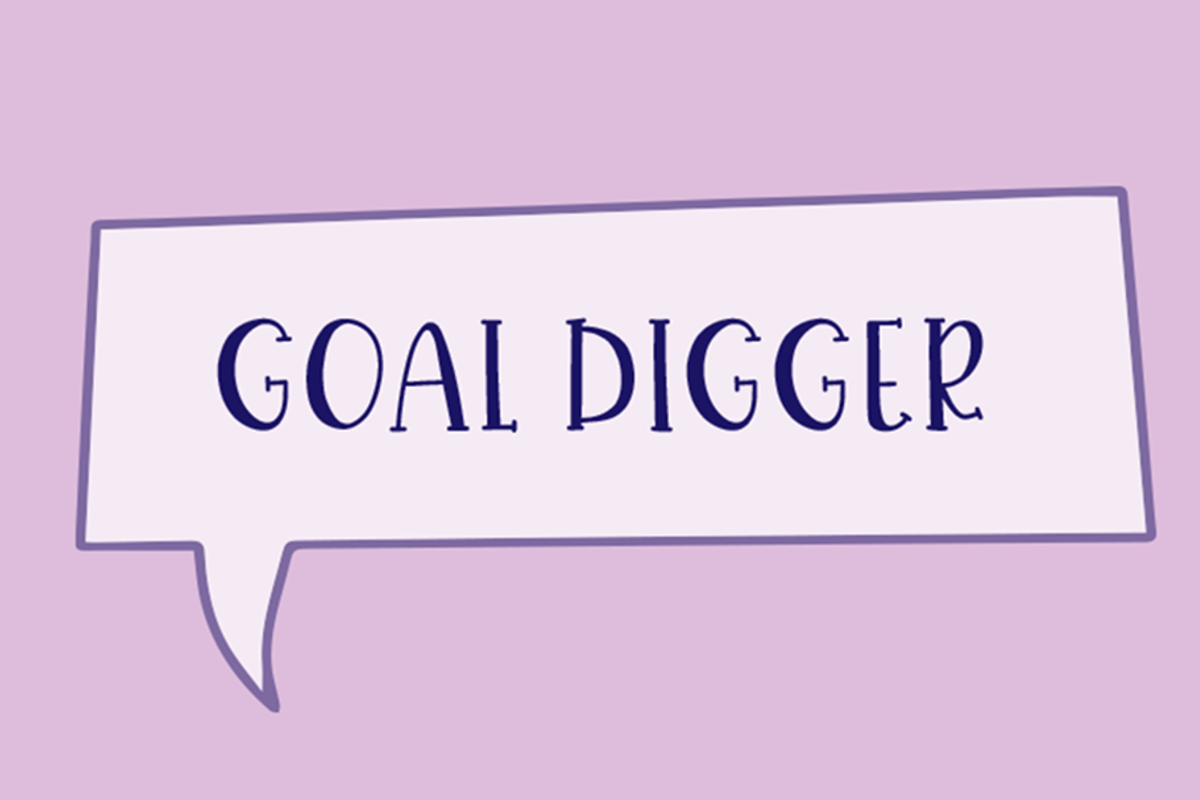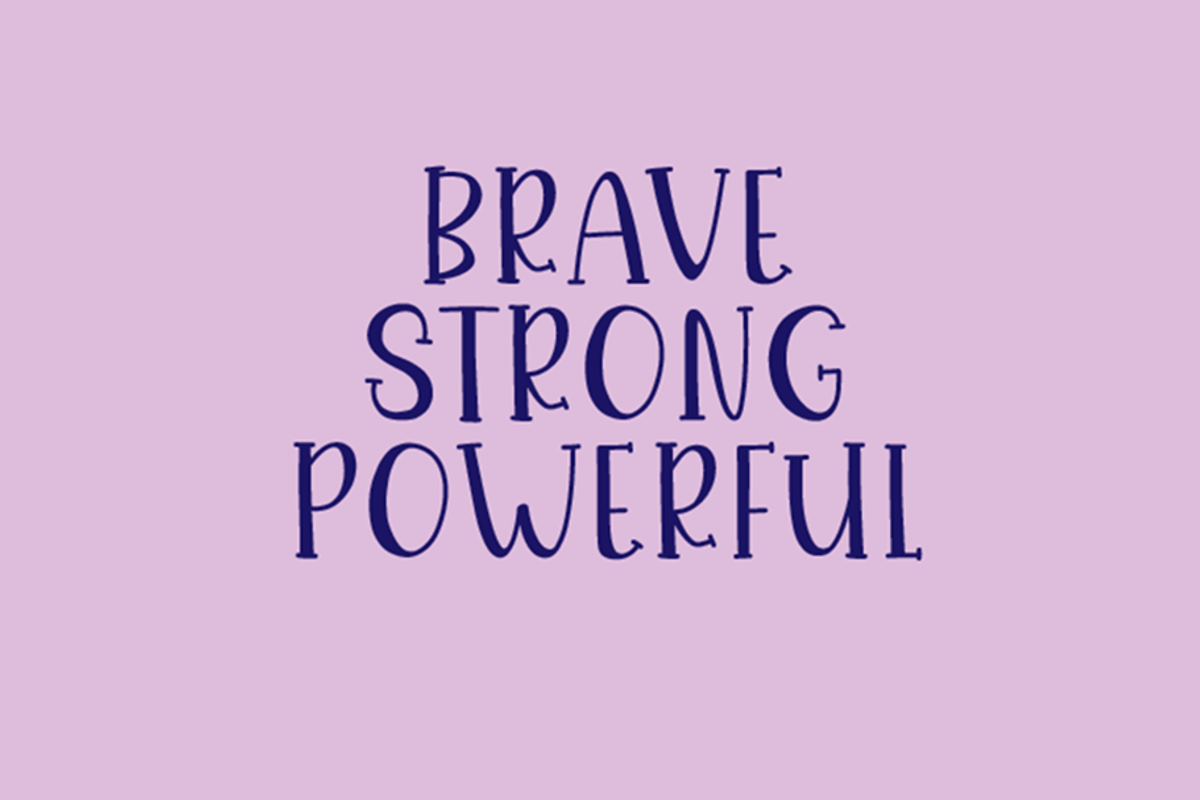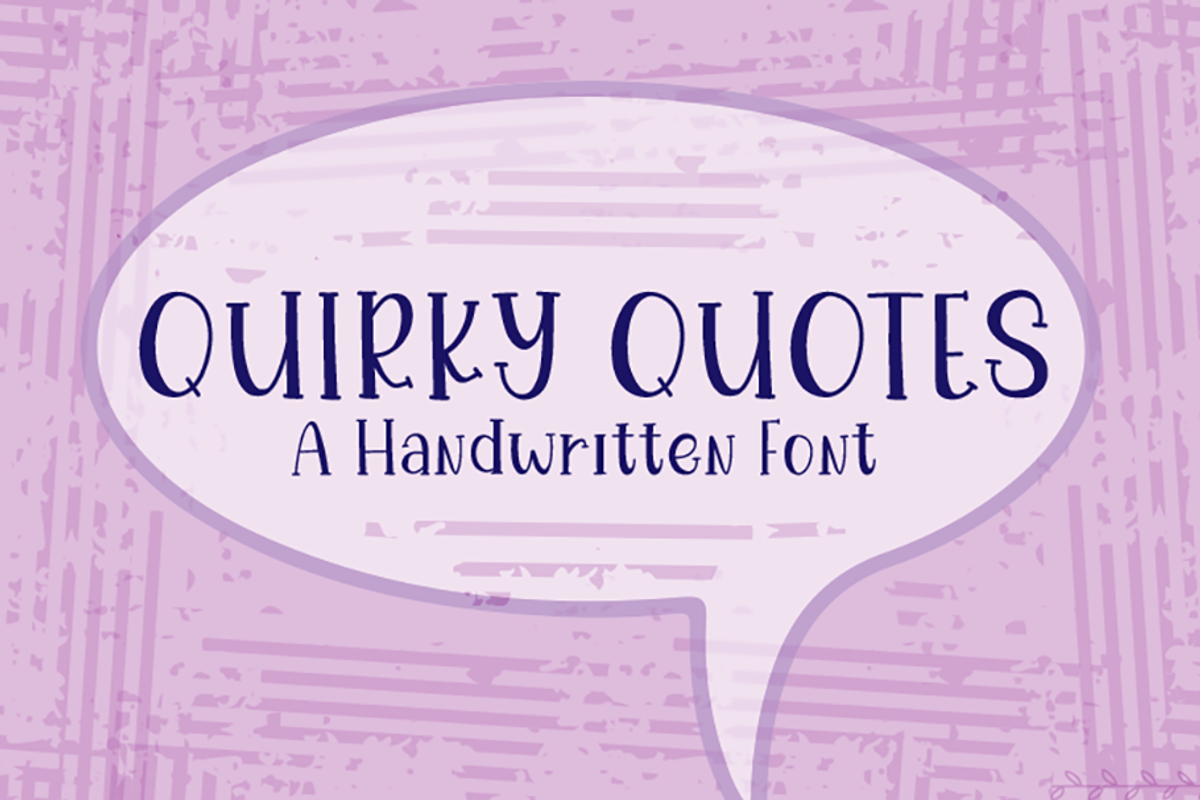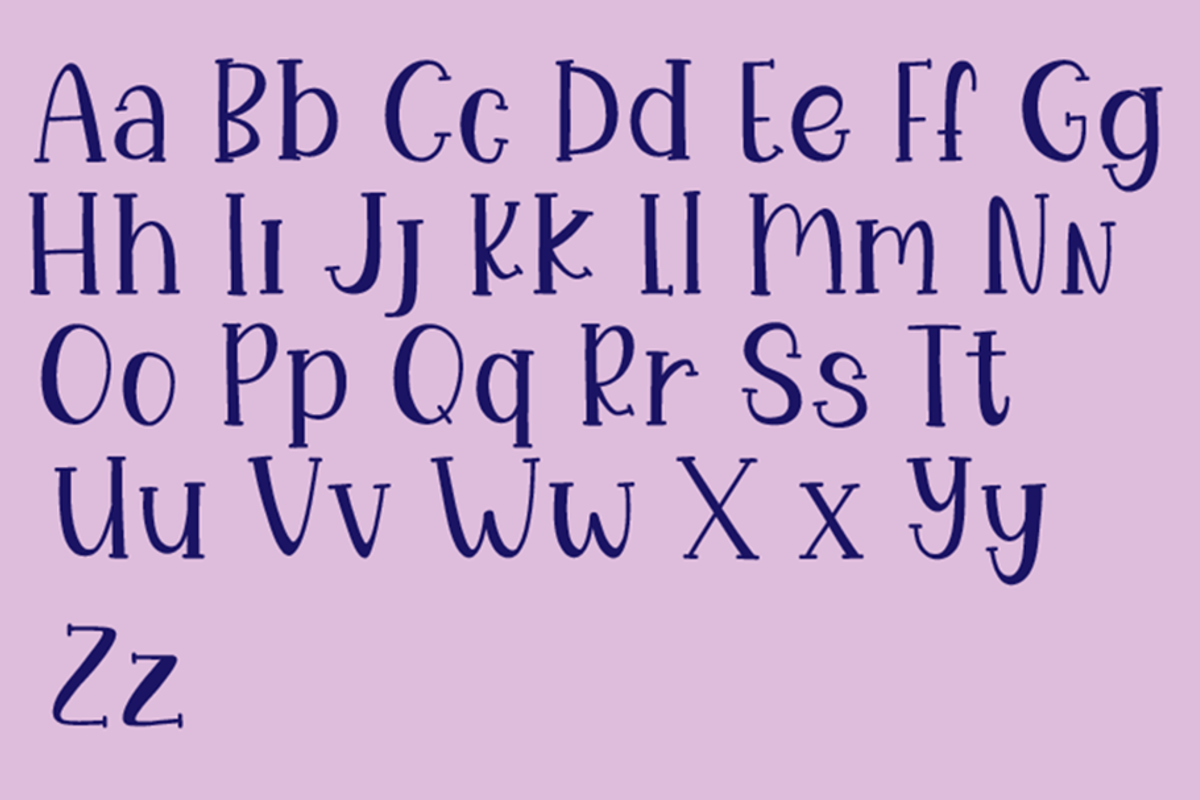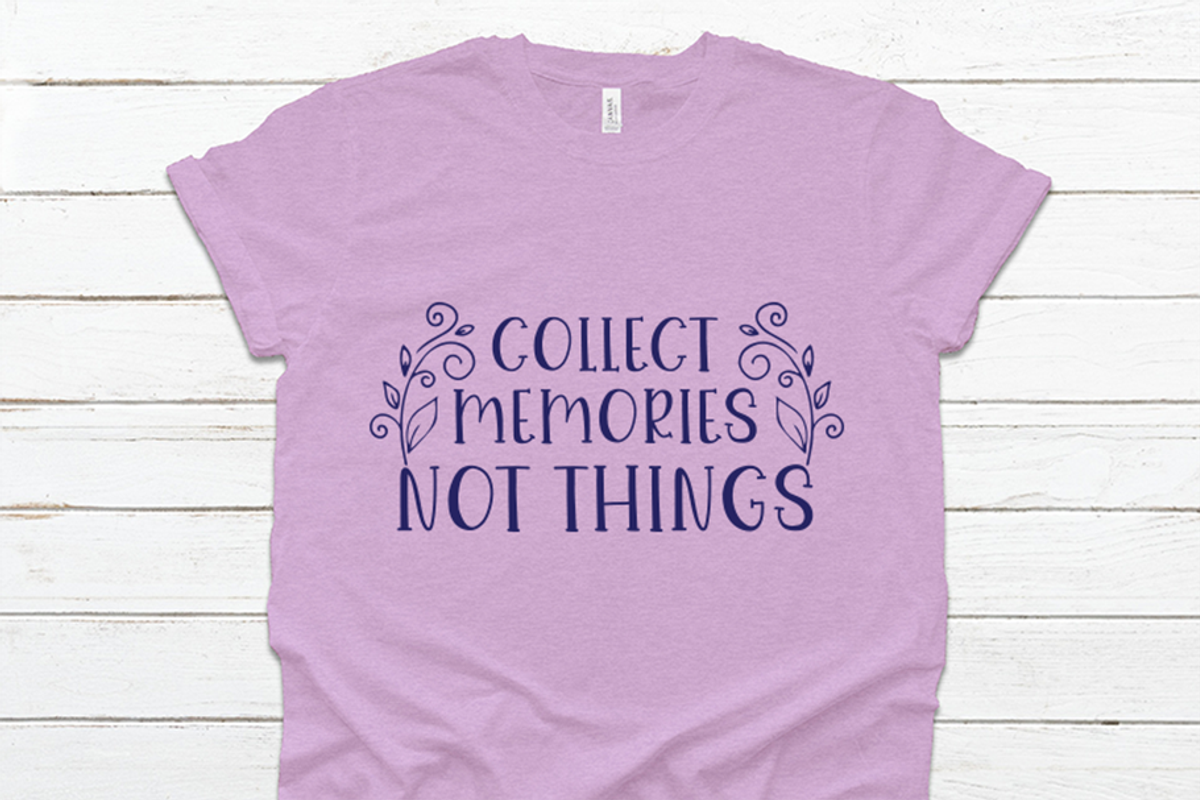
Quirky Quotes
Quirky Quotes is a handwritten font which was was created on the iPad. It is a useful font for logos, branding, SVG Quotes, book covers, greeting cards, blogs and much more. This purchase includes one OTF and one TTF file. Most accents characters are included.